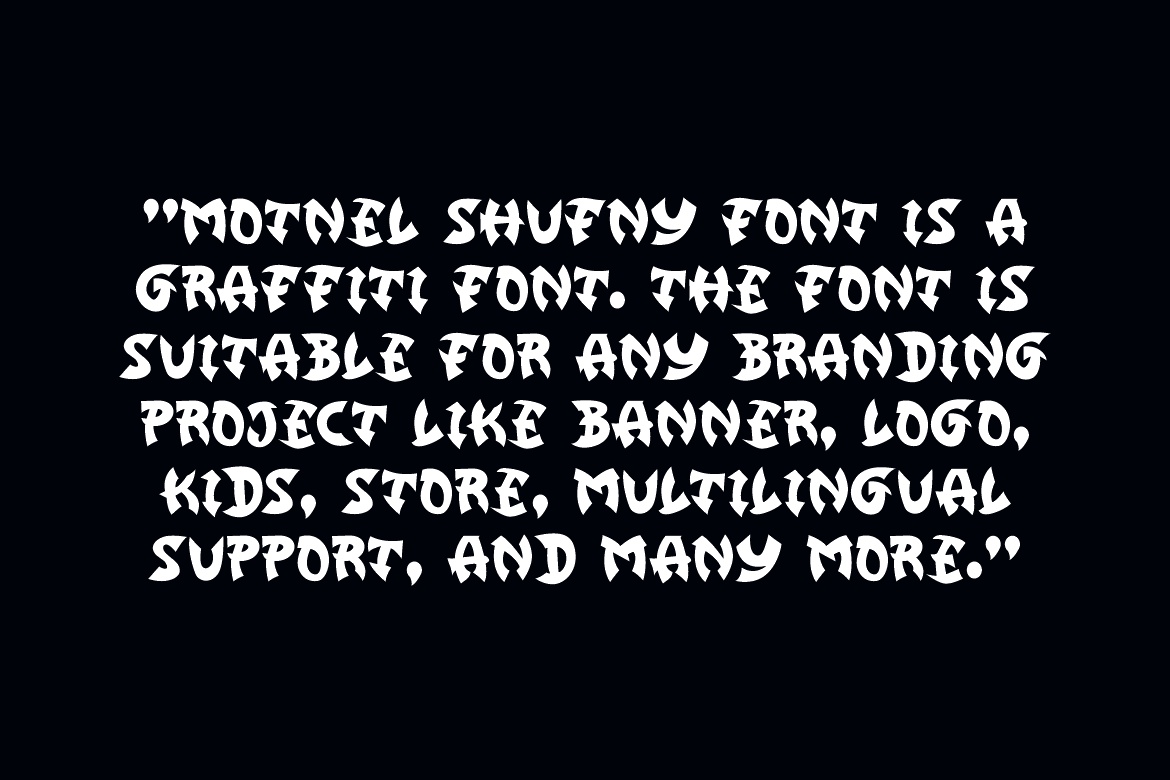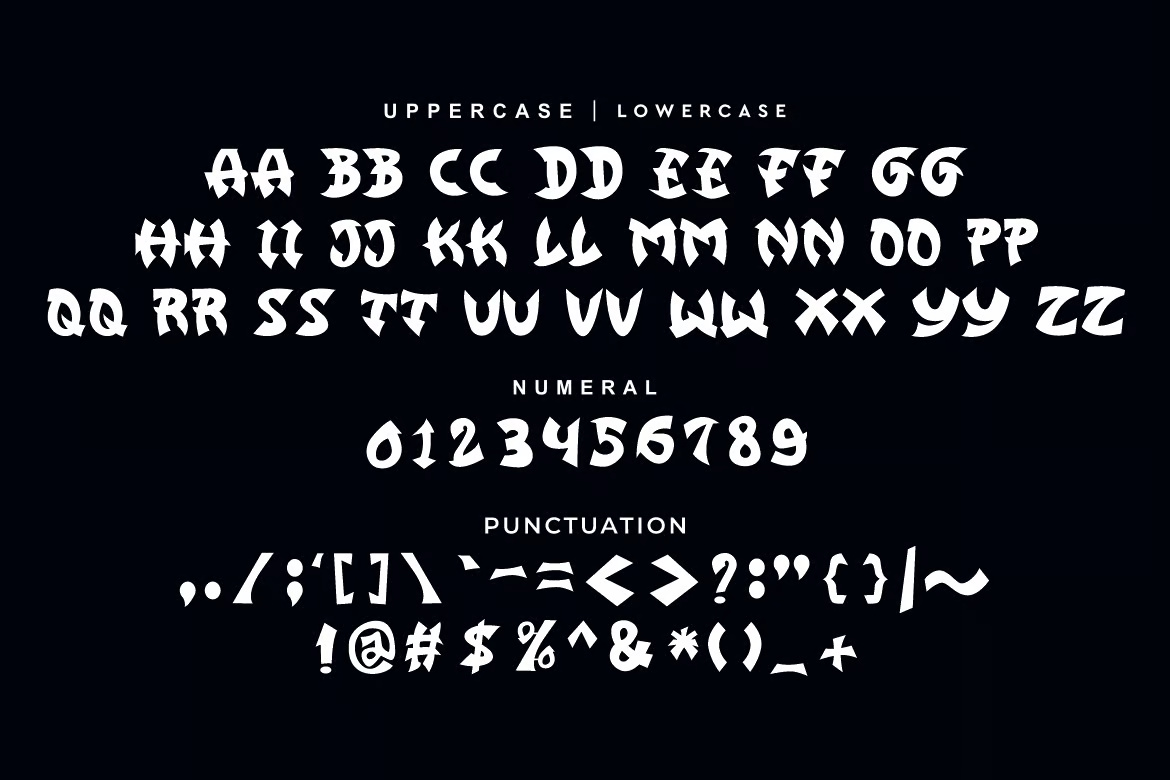
Motnel Shufny – Graffiti & Punk Font
Motnel Shufny Font is a bold and authentic display typeface with a strong and dynamic character. Perfect for branding projects such as posters, logos, sports designs, merchandise, and more, this font stands out in a wide range of creative and professional applications. Its striking letterforms add a touch of power and confidence to any design.
Motnel Shufny – Graffiti & Punk Decorative Font